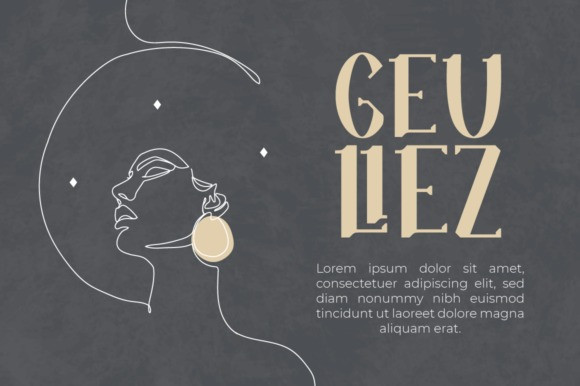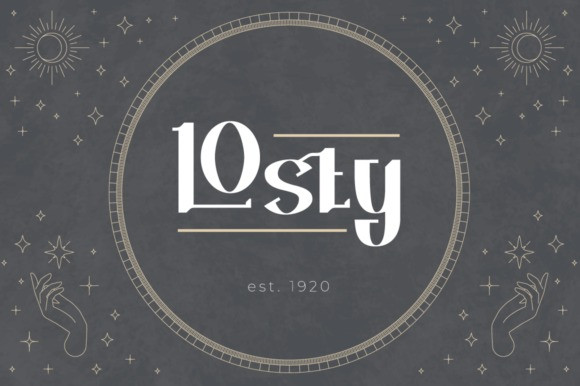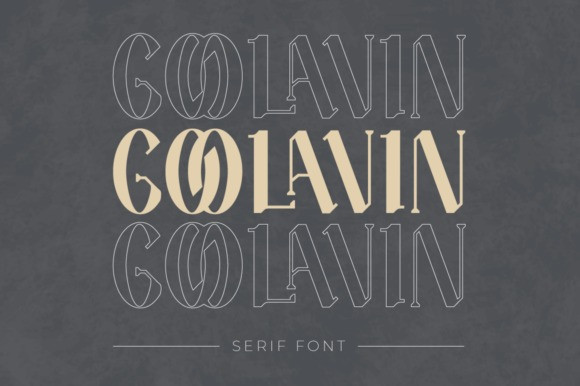
Goolavin Font
Goolavin Font is a unique, stylish, and sophisticated serif font. No matter the topic, this font will be an incredible asset to your fonts’ library, as it has the potential to elevate any creation.